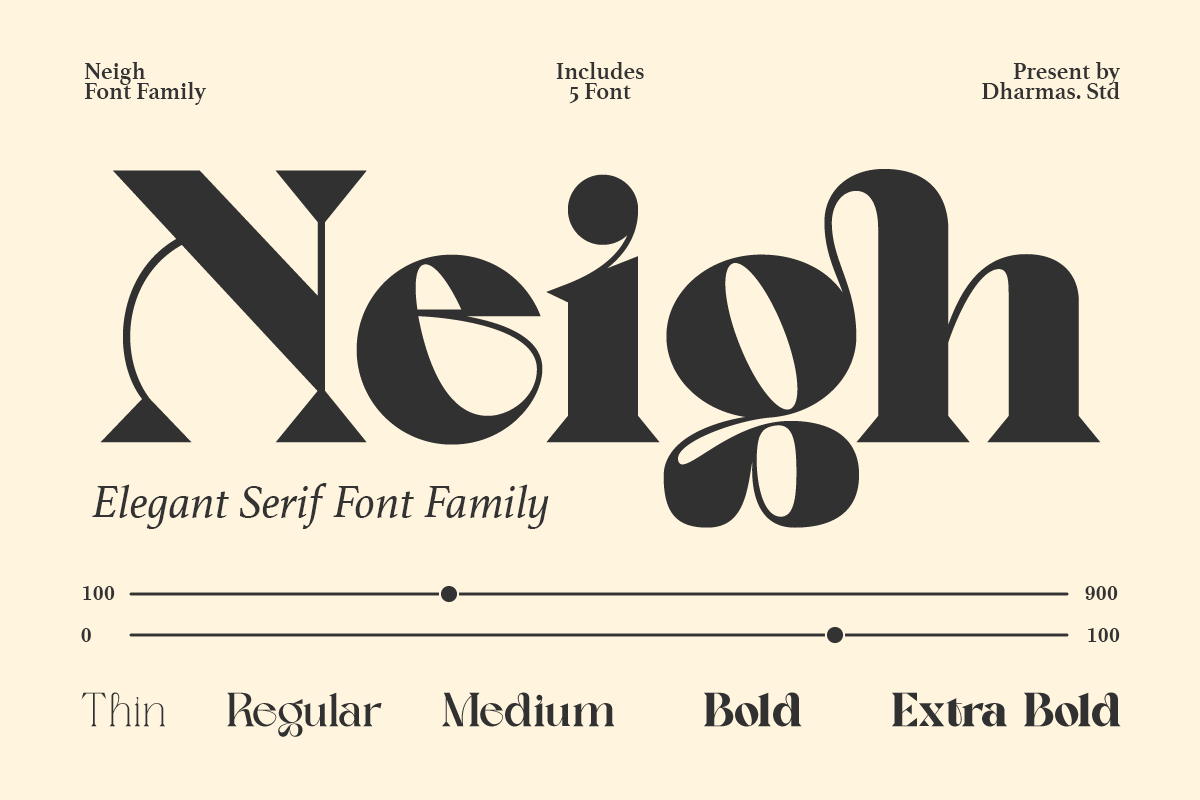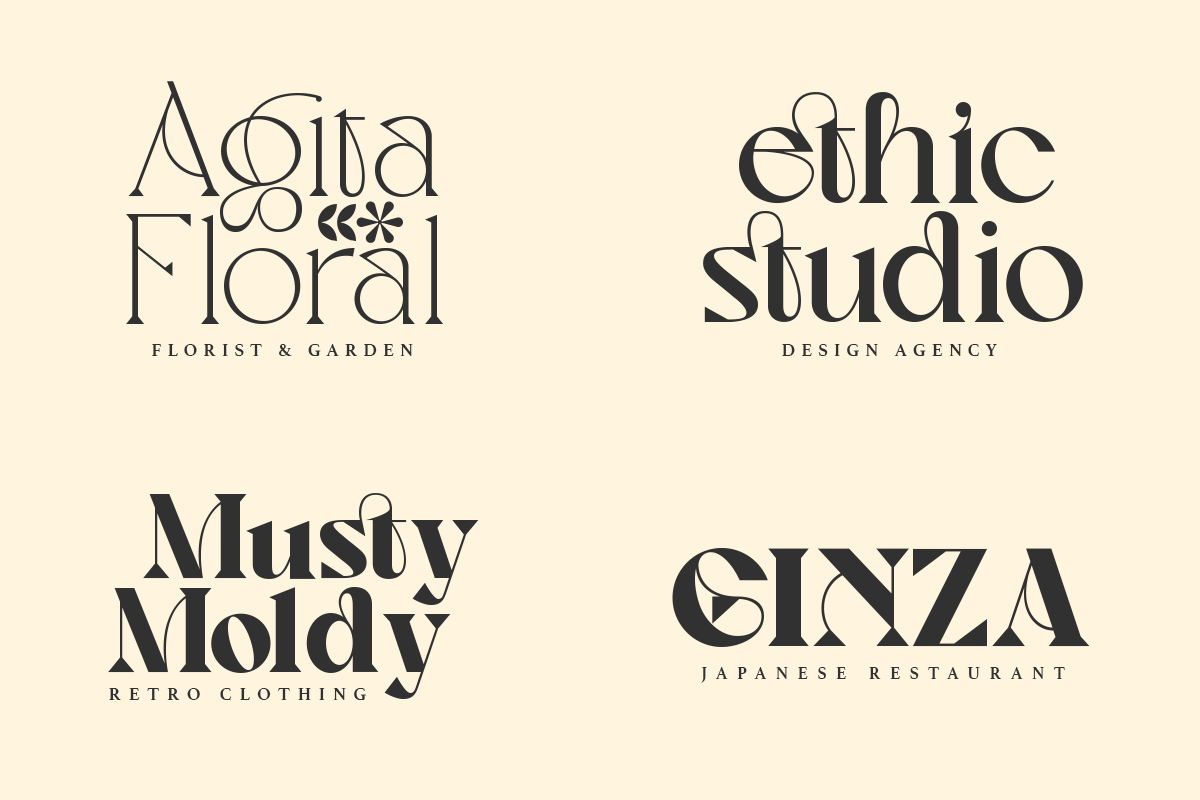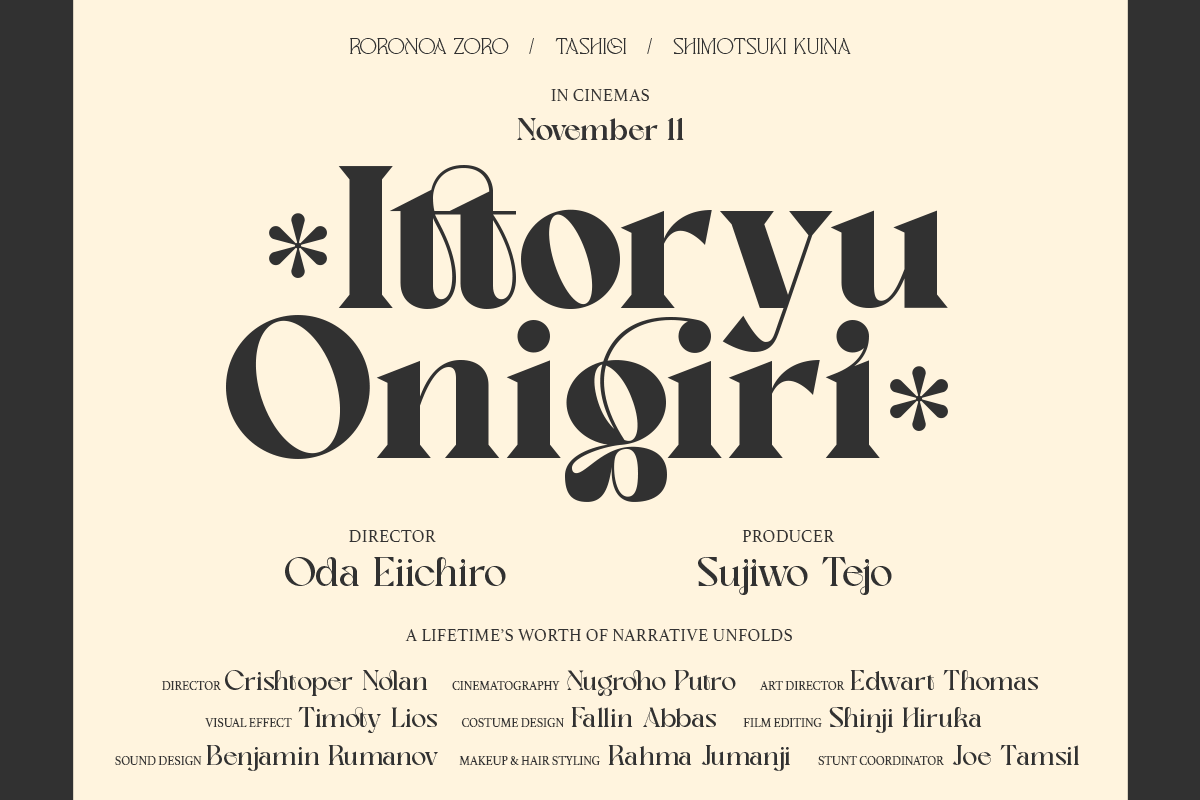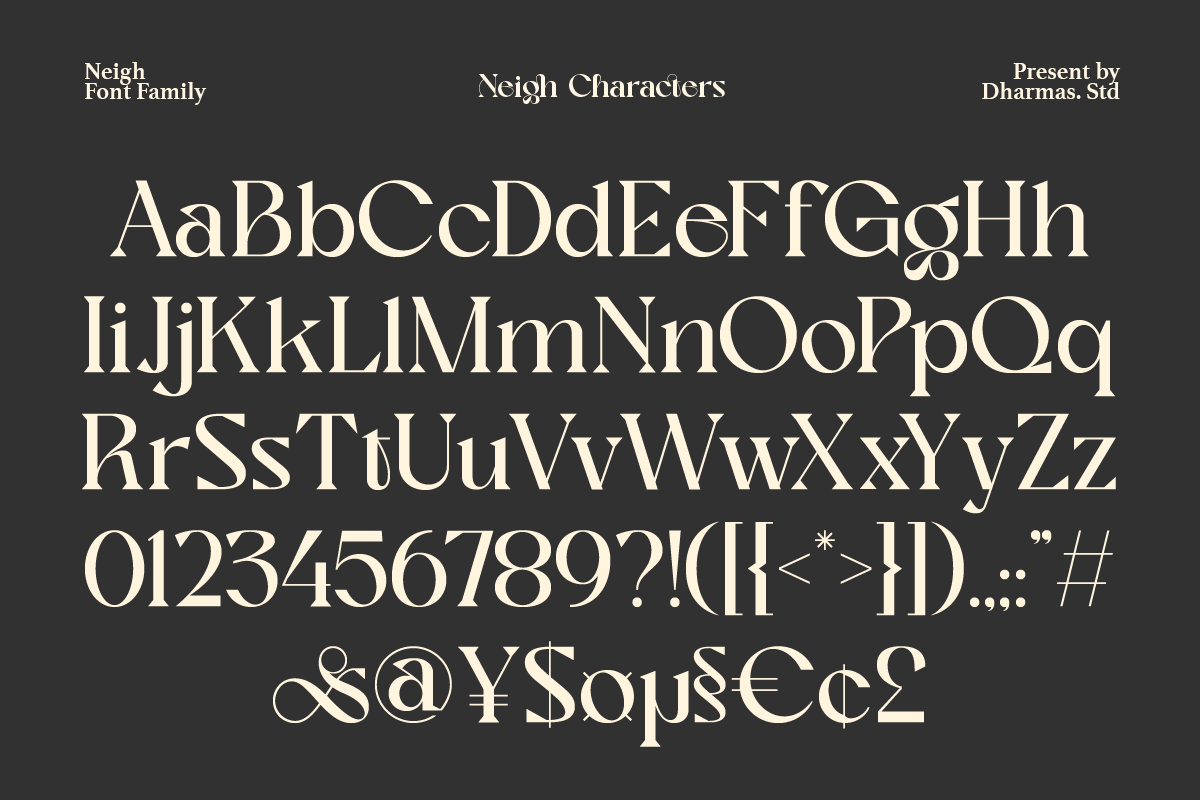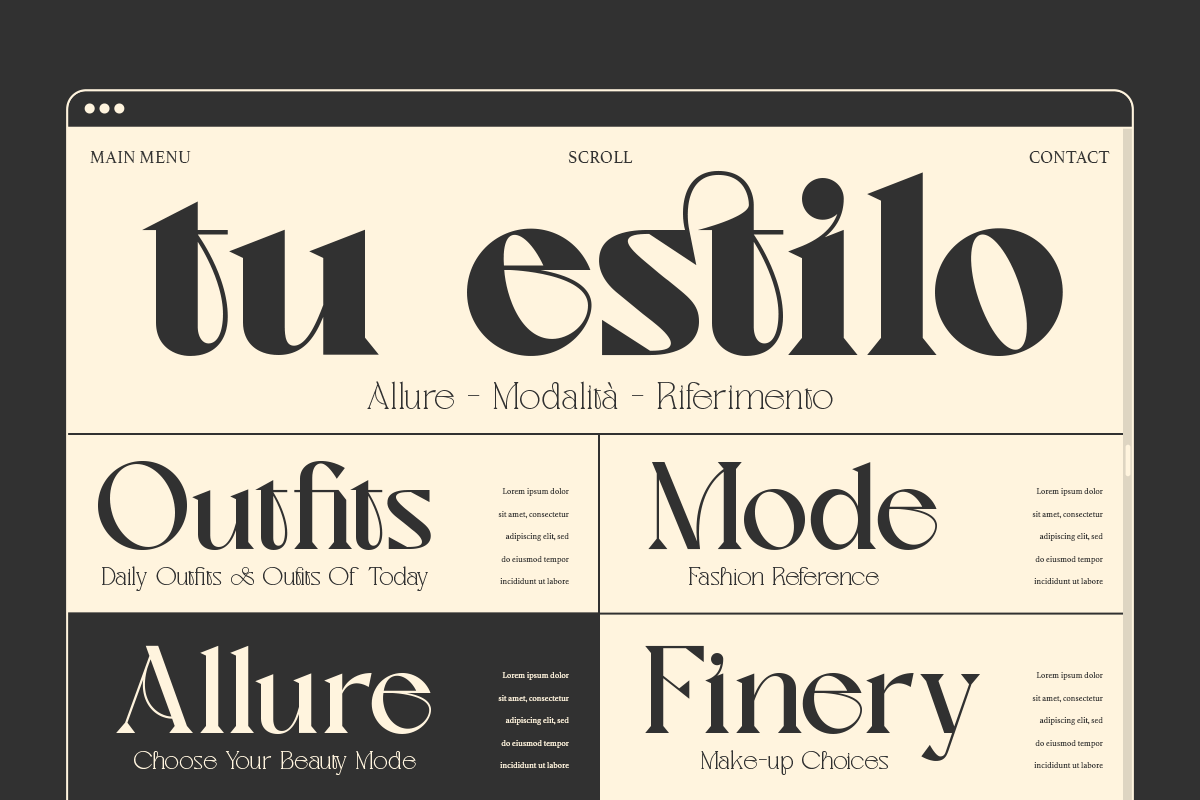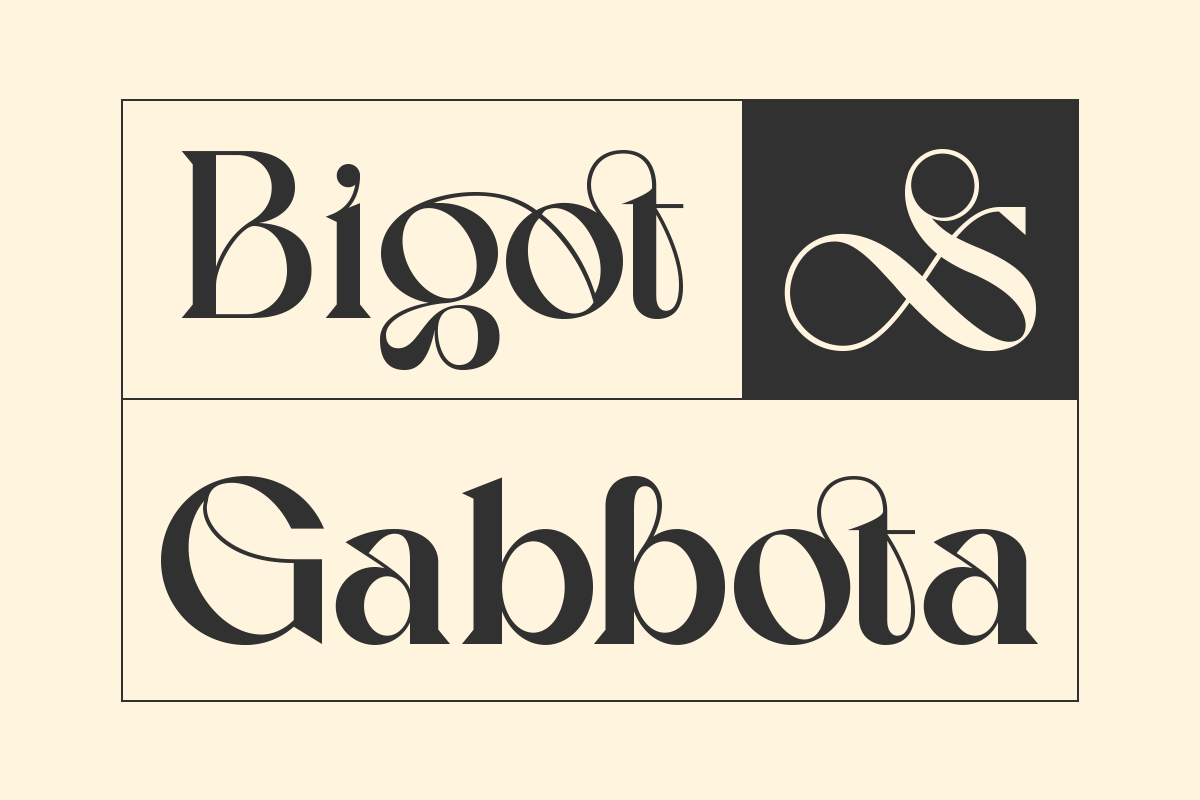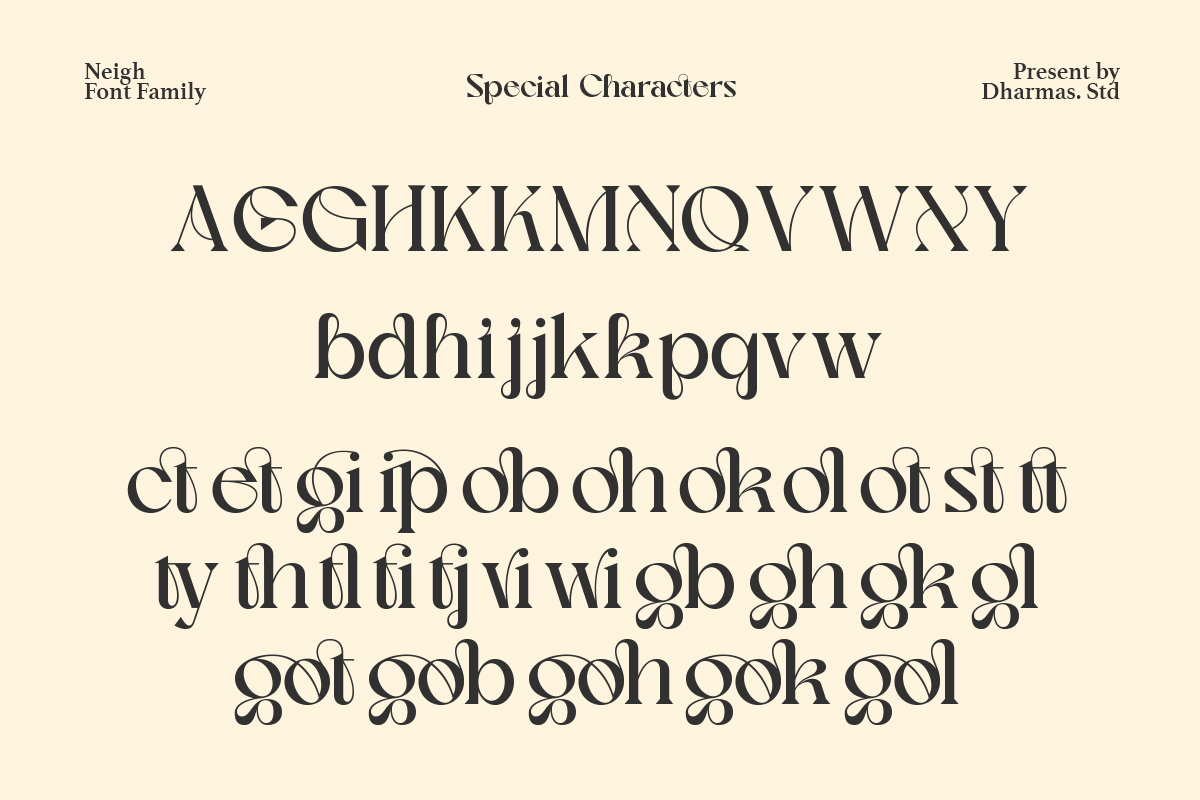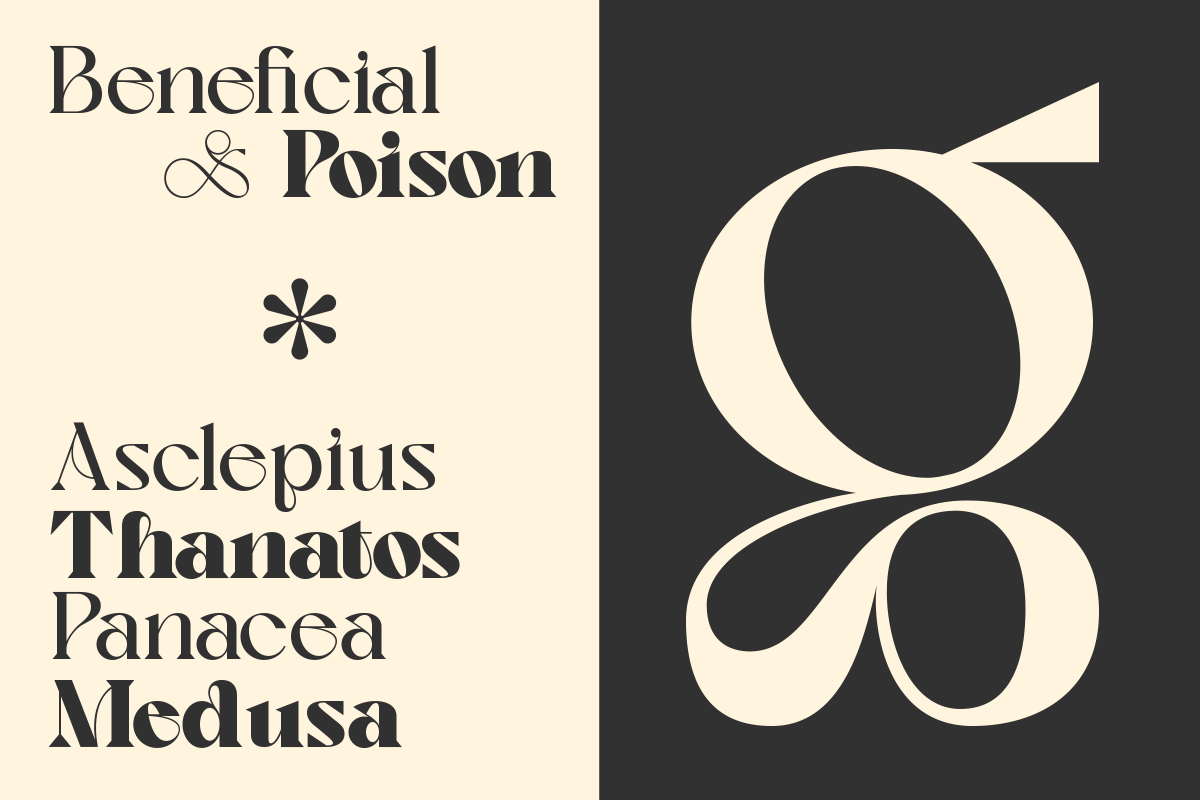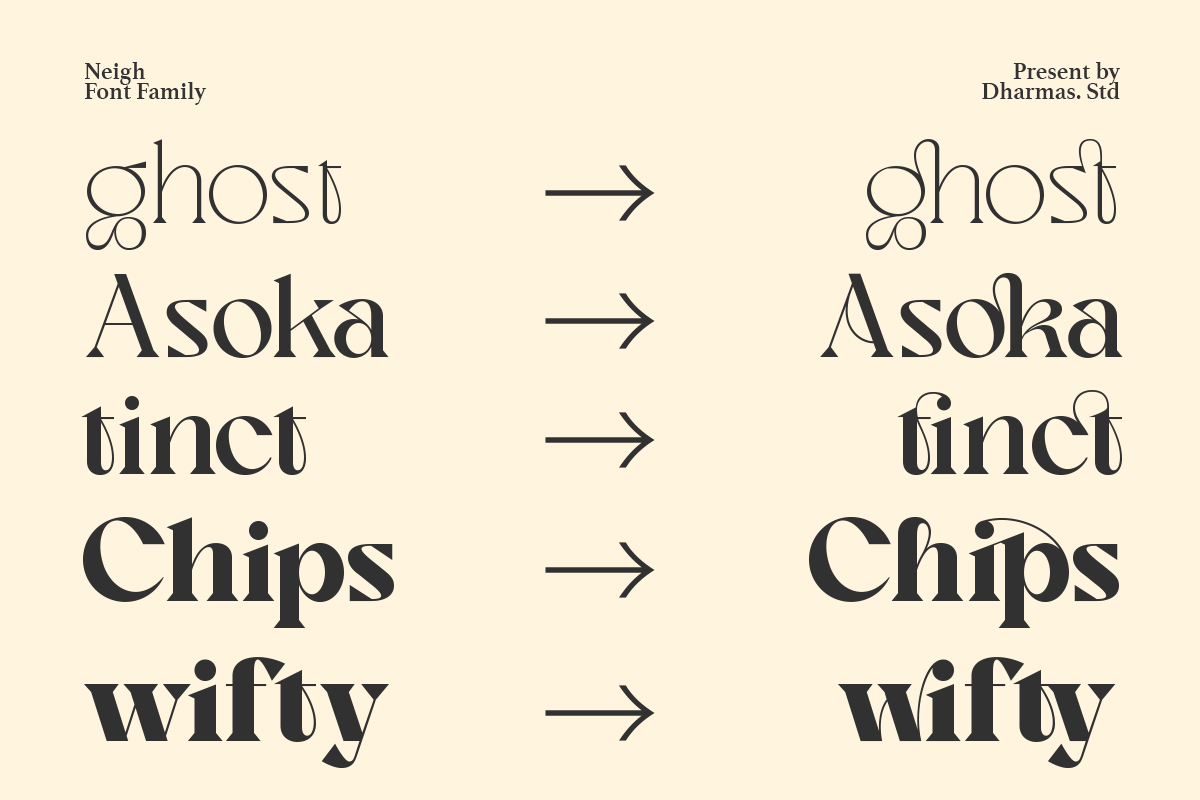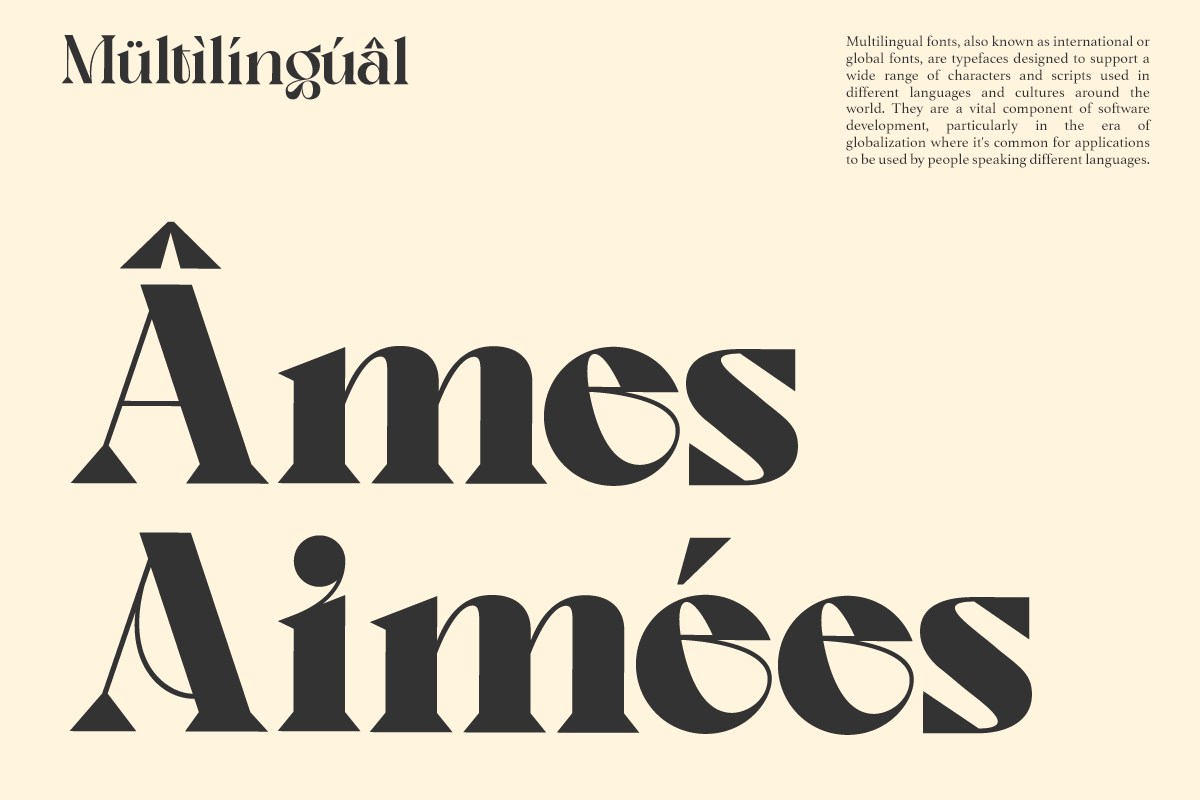
Neigh – Modern Luxury Logo Font
Introducing Neigh – A brand new modern family with a unique character!
Neigh is a fancy modern vintage serif typeface with beautiful ligatures, tons of special alternative glyphs, multilingual support.
Neigh comes in 5 font styles (Thin, Regular, Medium, Bold and ExtraBold). Its weight is superior in posters, social media, headlines, magazine titles, clothing, large print formats – and wherever you want to be seen. Inspired by the style of design that is currently popular, this is the answer to all the needs of every idea that you will pour into this modern and vintage era 😀
- 5 variable Font (Thin, Regular, Medium, Bold and ExtraBold)
- Have Beautiful Ligatures and Unique Special Alternates
- Unique Gylph Character
Language Support: Danish, English, Estonian, Filipino, Finnish, French, Friulian, Galician, German, Gusii, Indonesian, Irish, Italian, Luxembourgish, Norwegian Bokmål, Norwegian Nynorsk, Nyankole, Oromo, Portuguese, Romansh, Rombo, Spanish, Swedish, Swiss-German, Uzbek (Latin)